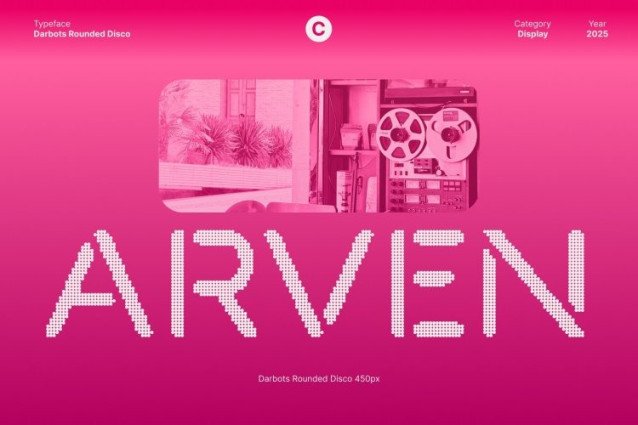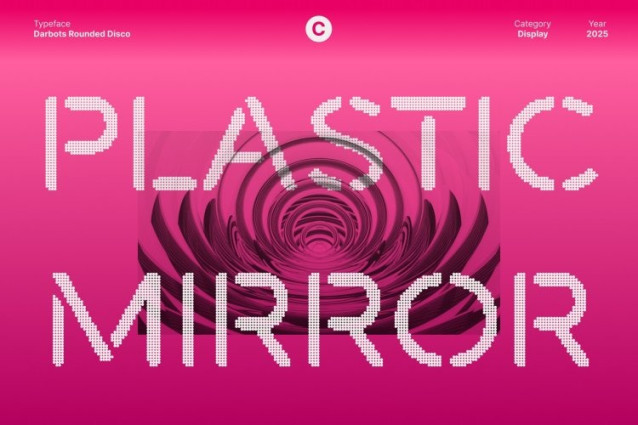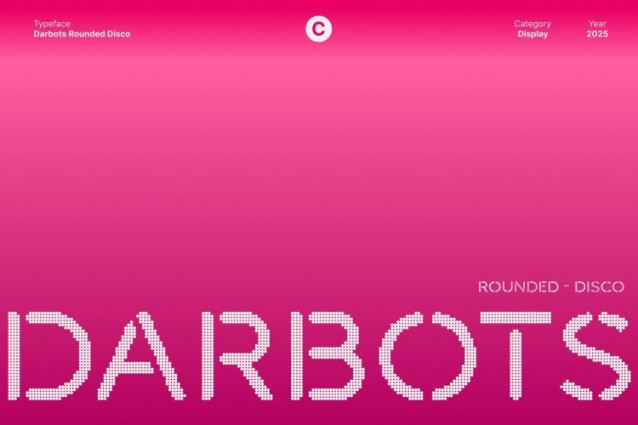
Darbots Rounded Disco Font
Darbots Rounded Disco Font This is a stencil sans serif font that blends industrial toughness with smooth, rounded shapes. Its cutout structure creates an edgy, mechanical feel, while the softened curves add approachability and balance. This combination results in a striking display font perfect for bold visuals that demand attention.
Disco Shine for a Glamorous Digital Aesthetic
Enhanced with a disco-inspired effect, this font delivers a sparkling, futuristic energy. The shimmering detailing adds depth and movement, transforming the industrial stencil style into something glamorous and digitally vibrant. This unique fusion makes the font stand out effortlessly in modern design environments.
Perfect for High-Impact Titles and Signage
Designed to be bold and commanding, this font excels in prominent titles whether on posters, websites, banners, or wall decor. Its sturdy forms and stencil cuts ensure high readability even from a distance, making it suitable for signage, street art concepts, and attention-grabbing layouts that require clarity and character.
Versatile for Creative and Contemporary Branding
This font adapts easily to various design needs, from logos and magazine covers to themed campaigns and event graphics. The industrial base provides strength, while the disco effect adds flair, giving designers a versatile typeface that communicates confidence, modernity, and a touch of electric shine. Whether you’re building a digital identity or crafting expressive visual statements, this font delivers a distinctive blend of grit and glamour.